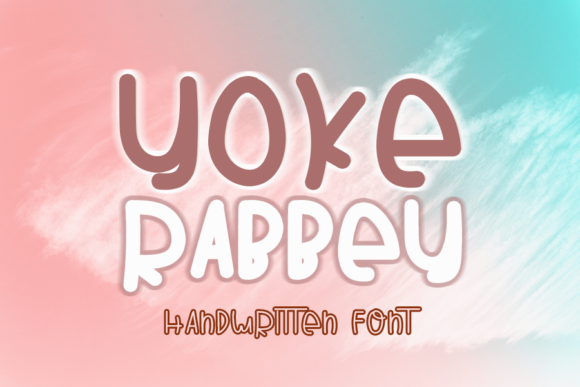
Yoke Rabbey
The first time I saw Yoke Rabbey, it felt like a warm hand on the shoulder. It’s not the kind of font that shouts, but one that whispers with intention. There’s a softness to its curves and a rhythm in its strokes that immediately suggests elegance and approachability. This is a typeface that feels crafted for those who want to speak with both grace and clarity—without sacrificing readability.
Yoke Rabbey belongs to the Script Amp category, and it’s clear why. Its design is rooted in script fonts, yet it carries a modern sensibility that makes it versatile. The letterforms are fluid, with subtle flourishes that add character without overwhelming the message. It’s the kind of font that can sit comfortably in a brand identity or elevate a creative project with just the right amount of personality.
In real-life design work, Yoke Rabbey shines in areas where visual storytelling matters. For logo design, it adds a touch of sophistication to names that lean toward the artisanal or lifestyle. I’ve used it for branding projects targeting boutique retailers, wellness brands, and creative studios—places where a handwritten feel is desirable but professionalism is still key. It works especially well when paired with a sans serif font for contrast and balance.
When it comes to packaging design, Yoke Rabbey brings a sense of care and attention to detail. Whether it's a product label or a premium box, the font helps convey quality without being too flashy. It’s also a great choice for editorial design, particularly in magazines or brochures that aim to blend creativity with readability. I’ve seen it used effectively in blog headers and social media graphics, where its legible structure ensures the message remains clear even at smaller sizes.
However, there are moments when Yoke Rabbey needs to be handled with care. Large headlines or short phrases should be approached thoughtfully. While the font is elegant, its decorative elements can sometimes make it less suitable for long-form content. That said, it excels as a display font, perfect for quotes, brand marks, or decorative accents. When used sparingly, it can enhance a design without overshadowing the main content.
Readability is a key factor to consider. In small sizes, the fine details of Yoke Rabbey can become less pronounced, making it harder to read. I always recommend testing the font in black and white and at different sizes to ensure it maintains its clarity. Pairing it with a strong sans serif font can help create a more balanced typographic hierarchy, especially in web design or digital products where text needs to be legible across various devices.
For brand identity, consistency is everything. Yoke Rabbey’s personality aligns well with brands that value authenticity and warmth. However, it’s important to maintain a cohesive look by using it consistently across all design assets. Mixing it with other fonts requires careful consideration—especially when working with serif or handwritten styles. A well-thought-out font pairing can elevate the overall design while keeping the brand message clear and engaging.
When designing for print, such as Canva templates or Cricut projects, Yoke Rabbey offers a nice balance between creativity and practicality. It’s ideal for printable designs that require both aesthetic appeal and functional readability. I’ve used it in invitations, posters, and flyers, where its charm adds a personal touch without compromising the message.
In terms of commercial use, it’s essential to confirm the licensing before deploying it in client work or business projects. Yoke Rabbey is a premium font, and its commercial license allows for a wide range of applications—from digital ads to merchandise. It’s a font that can be confidently used in a variety of contexts, provided it’s applied with awareness and purpose.
Overall, Yoke Rabbey is a thoughtful addition to any designer’s toolkit. It’s a creative font that respects both form and function, offering a unique visual language that can enhance a wide range of design projects. Whether you’re working on a brand identity, editorial layout, or social media graphic, Yoke Rabbey has the potential to leave a lasting impression. Just remember to test it thoroughly, pair it wisely, and use it with intention.